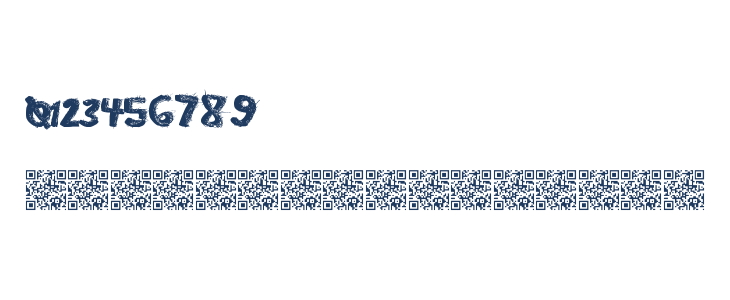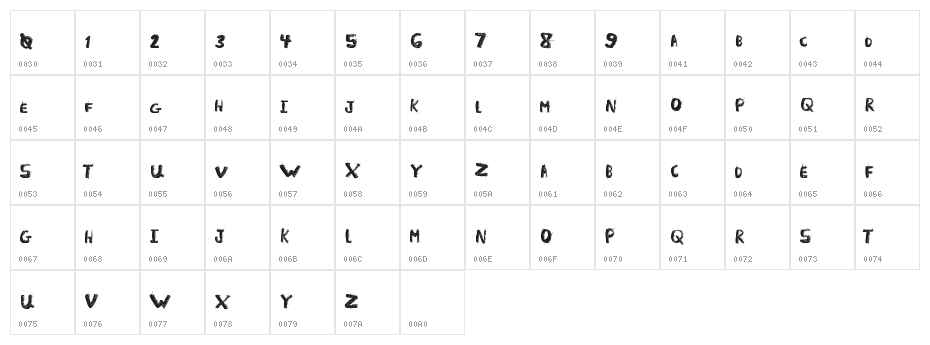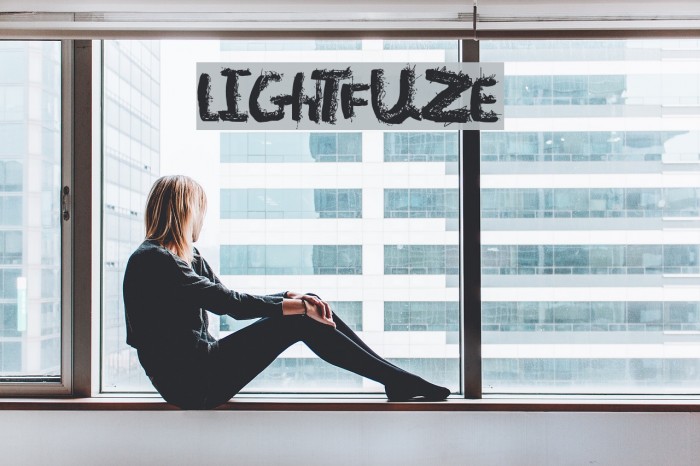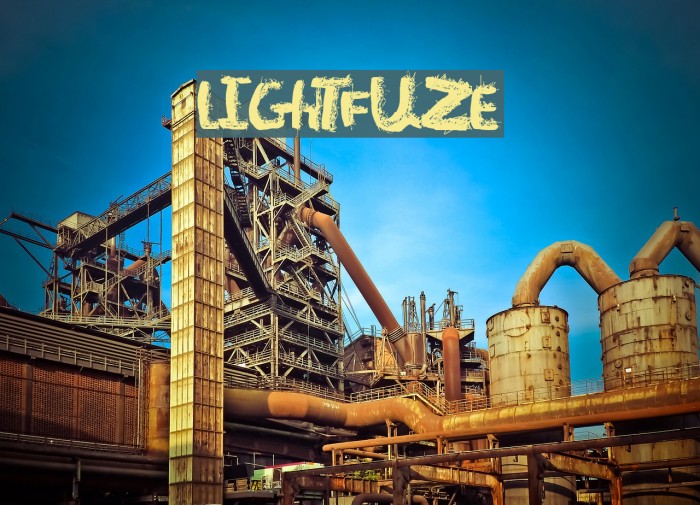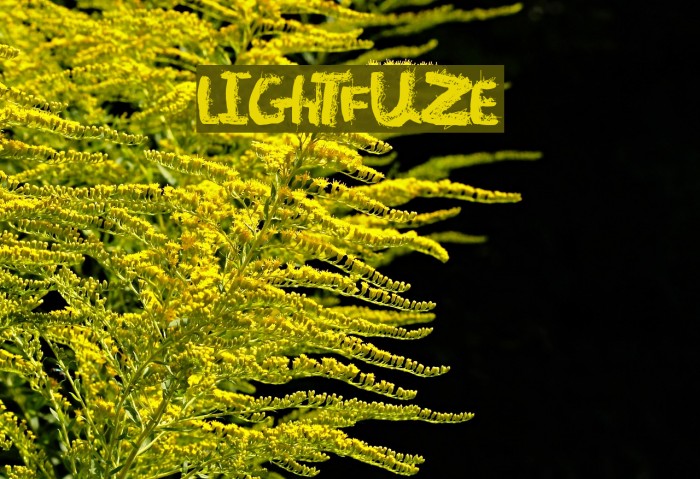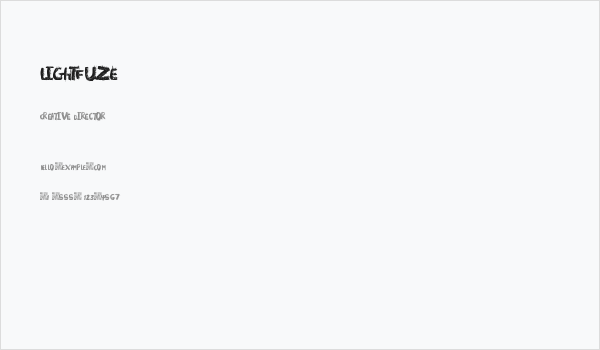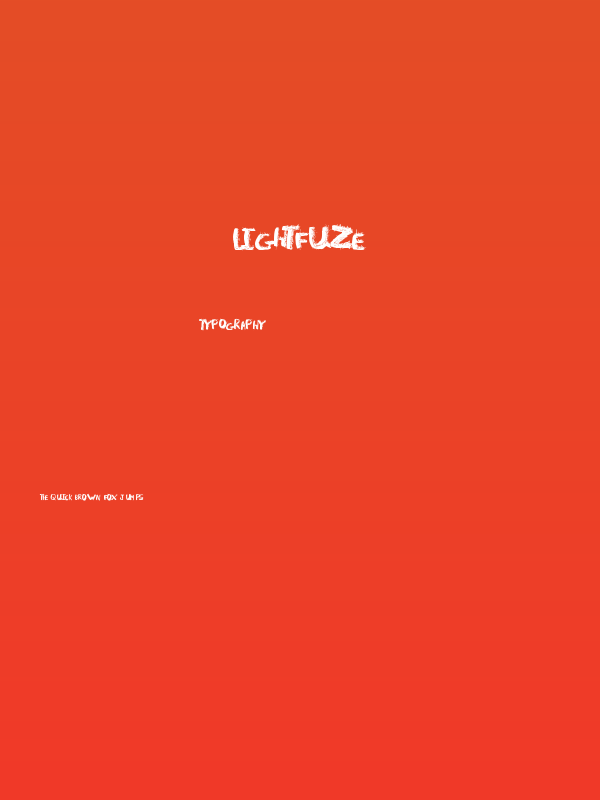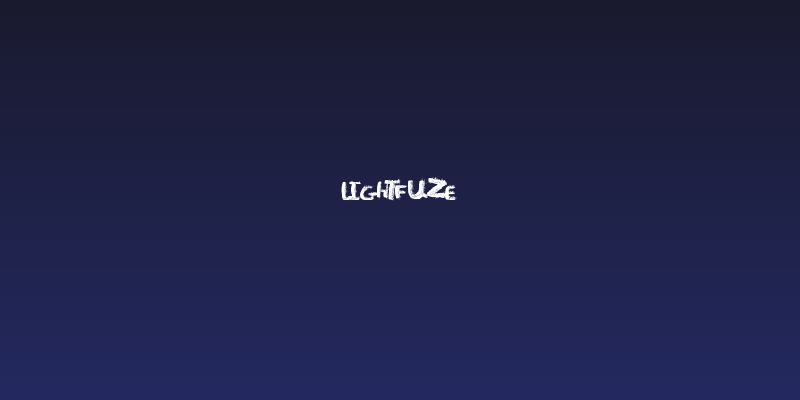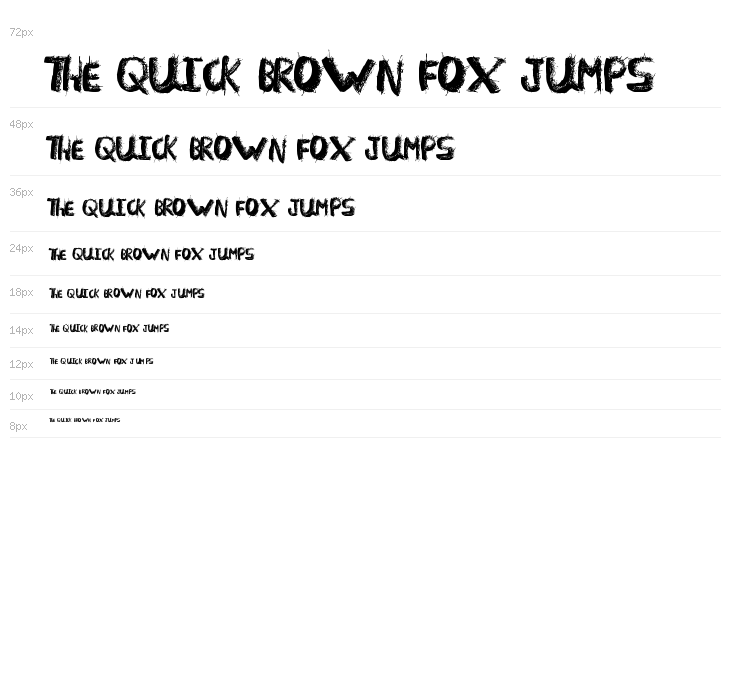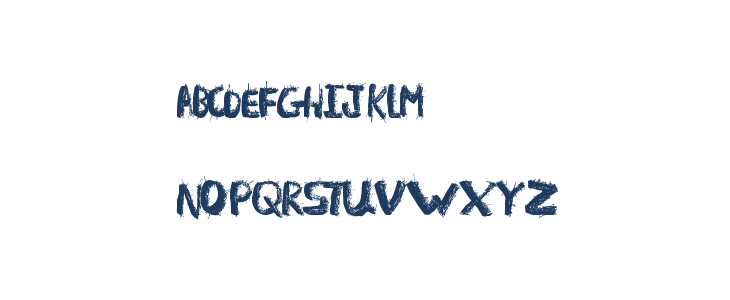
LightFuze Font
LightFuze Description
This font features a bold, distressed style with a rough, textured appearance that gives it a grunge or urban feel. The characters are irregular and appear as if they have been hand-drawn with a brush or marker, adding a dynamic and energetic quality. The uppercase and lowercase letters maintain a consistent style, with jagged edges and uneven strokes that enhance its raw aesthetic. The numbers and special characters follow the same design, making the font cohesive across all elements. This font is ideal for projects that require a bold statement or an edgy, artistic touch.
| Overall Style | Grunge, Urban, Artistic |
| Proposed Projects | Ideal for album covers, posters, streetwear branding, and urban-themed graphics. |